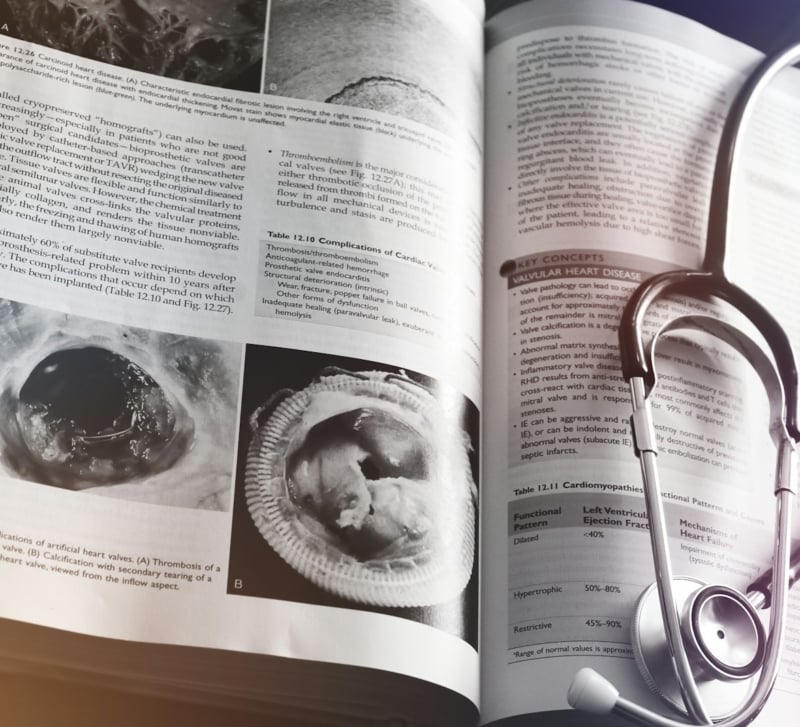
Designing for Readability: Why Font Choice Matters in Medical and Health Documents
Good typography rarely gets a second thought until it fails. A patient squinting at a CPAP setup guide, a carer trying to make sense of a discharge summary, or a person half-asleep reading their sleep apnoea diagnosis for the first time – these are the moments where font choice stops being a design detail and starts affecting whether someone actually understands what they have been told. In healthcare, readability is not a nice-to-have. It is part of the treatment.
This piece looks at why typography deserves more attention in medical and health-related documents, what actually makes a font readable in this context, and how these principles play out in a real-world setting: CPAP therapy, where clear instructions can be the difference between a patient using their equipment correctly and giving up on it altogether.
Why Readability Is a Health Issue, Not Just a Design Choice
Health literacy is already a widely studied problem. Even without factoring in design, a large share of adults struggle to understand medical instructions written in plain English. Add a poorly chosen typeface – too small, too decorative, too tightly spaced – and the barrier gets higher still. Researchers who study patient communication generally agree that comprehension problems are rarely about intelligence. They are about presentation, timing, and the conditions under which someone is expected to absorb new information.
Typography affects three things that matter enormously in a medical context: comprehension speed, error rate, and confidence. A document set in a clear, well-spaced font is read faster and with fewer mistakes. It also makes the reader feel like the information is trustworthy and considered, rather than an afterthought. That sense of trust matters more in healthcare than almost anywhere else, because the reader is often anxious, tired, or dealing with a new diagnosis.
The Hidden Cost of Poor Typography in Patient Materials
It is easy to underestimate how much damage a bad font choice can do. Consider a CPAP therapy guide printed in a narrow, low-contrast typeface with tight line spacing. The patient using it is very likely a person who has just been told they have obstructive sleep apnoea, is probably fatigued, and may be over 50 – an age group where visual acuity and reading speed both decline. Ask that person to follow multi-step instructions in a font that is hard to read, and the risk of misuse goes up sharply.
This is not a hypothetical problem. Manufacturers of medical devices, sleep clinics, and CPAP suppliers all produce user manuals, mask-fitting guides, and cleaning instructions that patients are expected to read unsupervised, often at home, often late at night. If the typography gets in the way, the consequence is not just frustration. It can mean a mask that is fitted incorrectly, a machine setting left wrong, or therapy abandoned within the first few weeks – which is unfortunately common with new CPAP users.
Compliance data from sleep clinics consistently shows a drop-off in the first month of therapy, and while there are many contributing factors, unclear onboarding material is one that is entirely within a supplier’s control. A patient who understands their equipment from day one is far more likely to persist through the adjustment period than one who is left guessing.
What Makes a Font Readable in a Healthcare Context
Readability is not the same as attractiveness, and it is worth separating the two. A few characteristics consistently show up in fonts that perform well in health and medical settings:
Generous x-height. Letters with a taller lower-case body relative to the cap height are easier to read at smaller sizes, which matters on printed inserts and packaging where space is limited.
Clear letterform distinction. Characters that are easily confused – a lower-case l and capital I, or a zero and the letter O – cause real problems in instructions involving numbers, such as pressure settings or dosage.
Moderate letter spacing. Tight tracking might look sleek in a headline, but it slows down reading in body copy, especially for older readers or anyone reading under stress.
Neutral, non-decorative design. Novelty or highly stylised fonts have their place in branding, but they are the wrong choice for anything a patient needs to act on.
Sans-serif for screens, either serif or sans-serif for print. On screens, sans-serif fonts tend to render more cleanly at smaller sizes. In print, a well-designed serif can perform just as well, provided the stroke contrast is not too extreme.
A Real-World Example: CPAP Patient Materials
CPAP therapy is a good example of just how much design touches a patient’s day-to-day experience, well beyond the clinical appointment. Someone newly diagnosed with sleep apnoea will typically be reading about, comparing, and eventually setting up their own equipment, often while researching independently at home.
For designers, that means choosing fonts with genuine readability credentials, not just visual appeal. For healthcare providers and suppliers, it means recognising that a clear, well-set page is part of good patient care, not a separate concern from it.